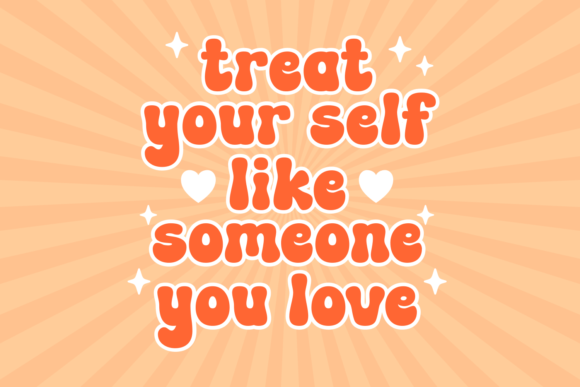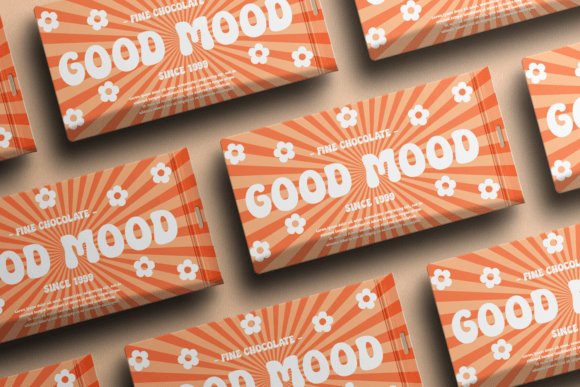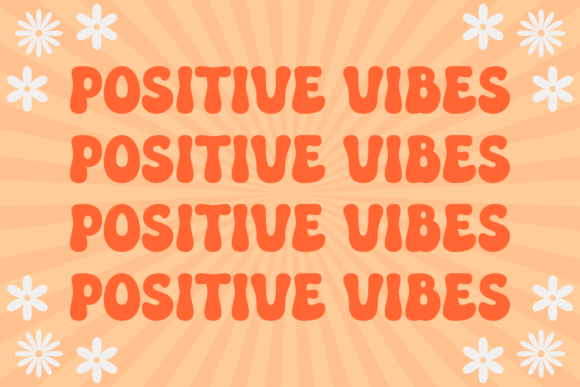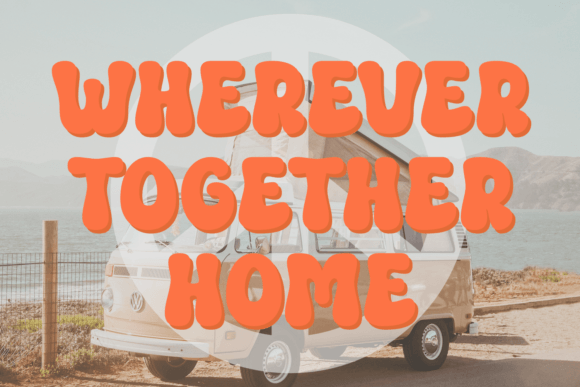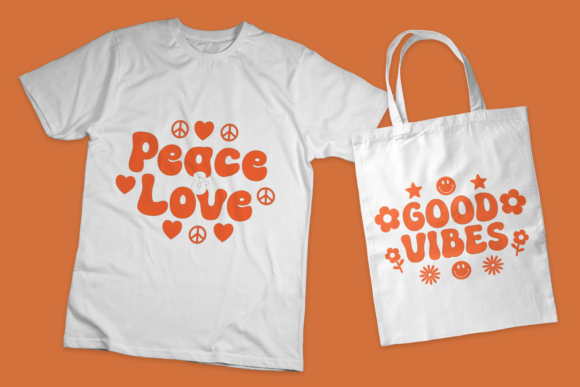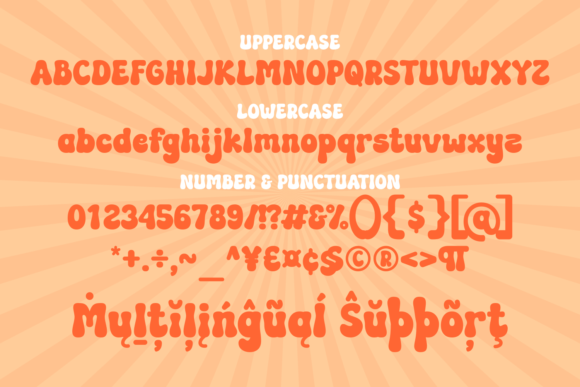
Get Ready to Groove with Your Designs
Have you ever stared at a blank page, waiting for that perfect spark of creativity to strike? For designers, it’s a familiar feeling – the moment when everything comes together and a project starts to take shape. For me, it was when I stumbled upon the Always Groovy Font. Its retro charm and playful vibe instantly transported me to a world of flower-power and free-spirited creativity.
The Always Groovy Font is a display font designed to evoke the carefree spirit of the 1960s and 70s. Perfect for hippie-inspired designs, it’s a must-have for any designer looking to add a touch of nostalgia to their work. And with its PUA encoding, accessing all the glyphs and special characters is a breeze, making it a valuable addition to any designer’s toolkit.
Always Groovy Font Key Features
- Font Family: Always Groovy is a unique display font designed to evoke a sense of nostalgia and playfulness.
- Size: The font family includes a wide range of weights and styles, from 100 to 900, allowing for precise control over the level of boldness or lightness.
- Resolution: Designed for high-resolution displays, Always Groovy is optimized for use at 72 dpi, 144 dpi, and 300 dpi, ensuring crisp and clear rendering.
- Unique Characteristics: This font features a distinctive, hand-drawn aesthetic with subtle imperfections, giving it a warm and organic feel.
- Language Support: Always Groovy supports a wide range of languages, including Latin, Cyrillic, and Greek scripts, making it a versatile choice for global applications.
Always Groovy Font Review
I recently had the chance to work with the Always Groovy Font, and I’m here to share my honest thoughts.
- The Always Groovy Font has a unique, retro vibe that’s perfect for projects that need a fun, carefree feel.
- The font is highly customizable, allowing you to adjust the size, color, and spacing to suit your design needs.
- The font family includes a wide range of weights, from light to bold, making it easy to create visually appealing headings and body text.
- The Always Groovy Font may not be suitable for projects that require a professional or corporate tone.
- The font’s unique style may not be to everyone’s taste, and some users may find it too playful or distracting.
- The font is not optimized for very small text sizes, which can make it difficult to read in certain contexts.
The Always Groovy Font is a fun and versatile choice for projects that need a playful touch. While it may not be suitable for every design context, it’s a great option for creatives who want to add some personality to their work.
Always Groovy Font is commonly used in:
- Music and arts-related designs
- Retro-themed designs
- Handwritten or script-style designs